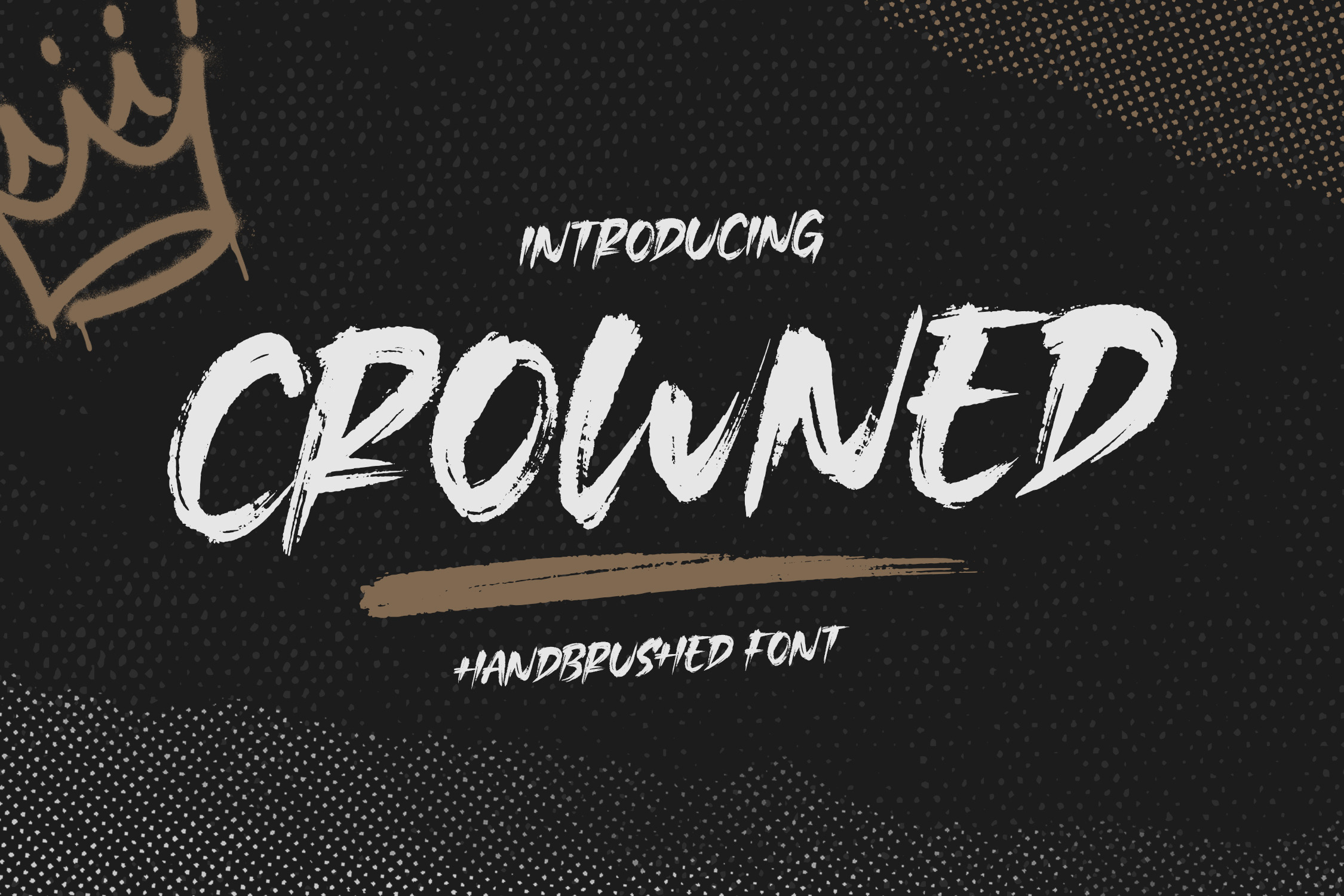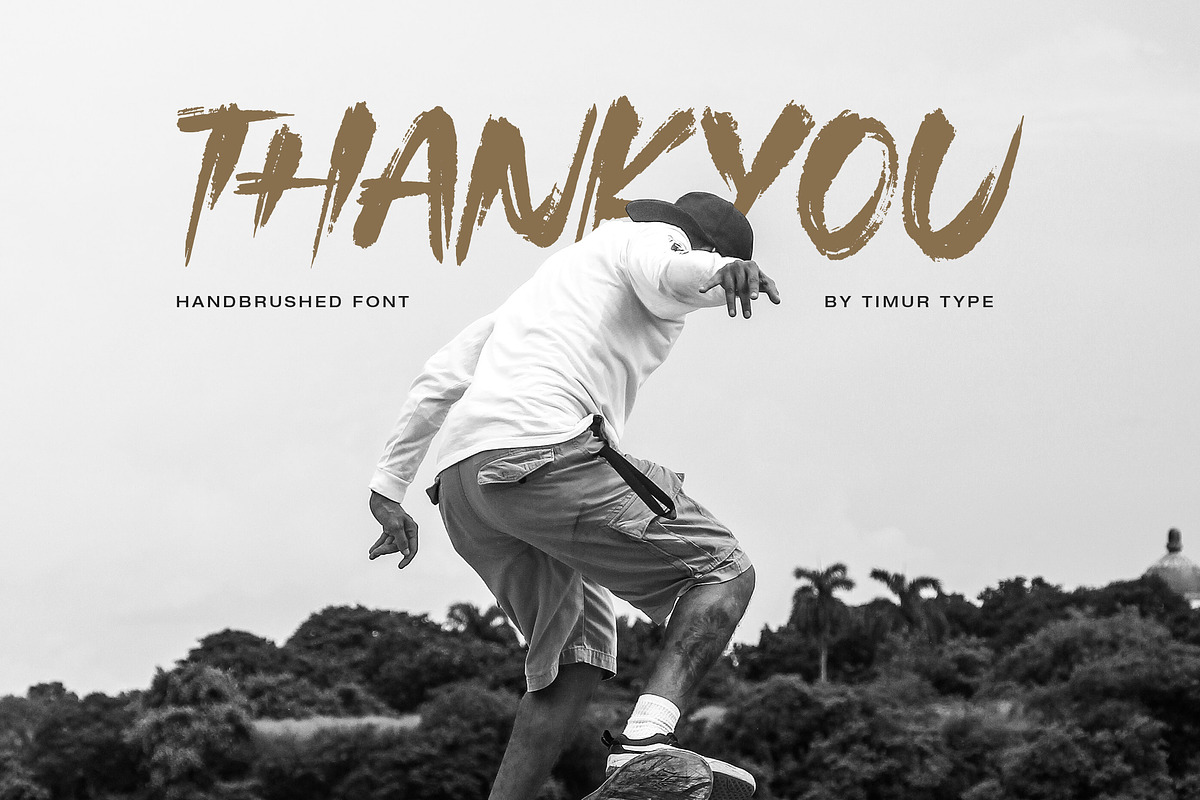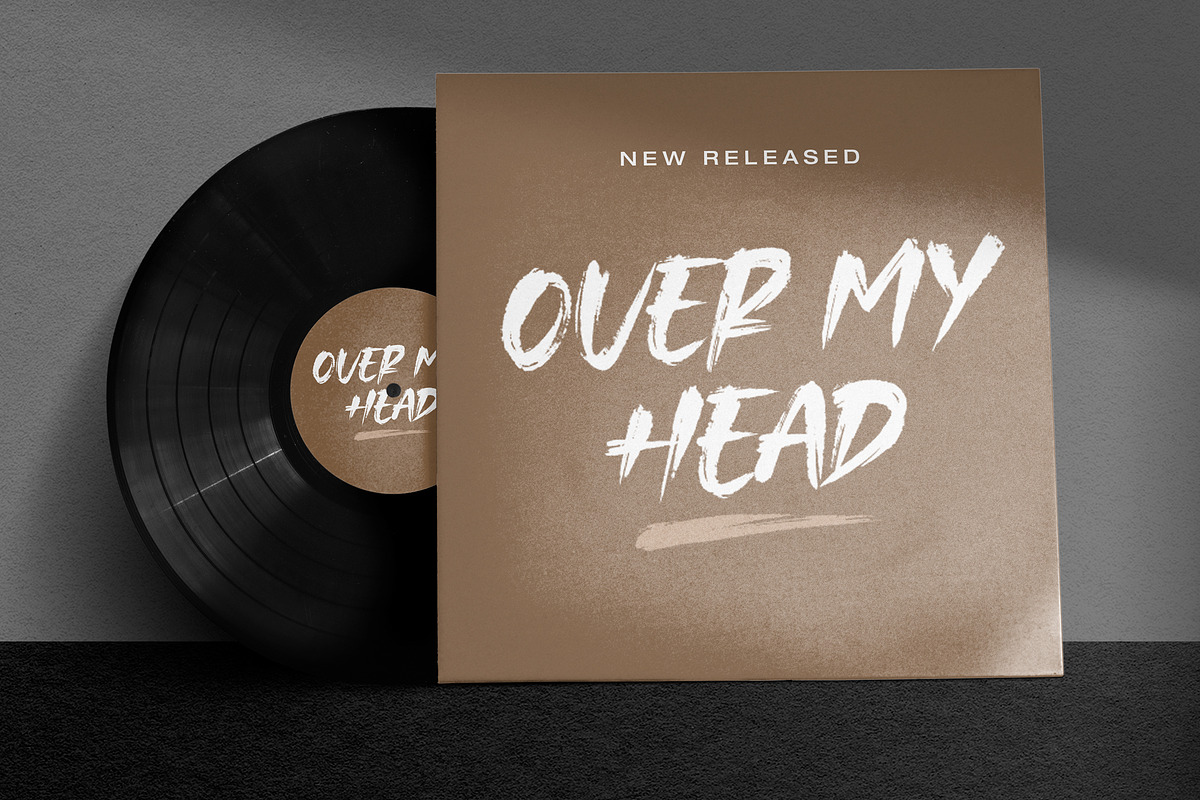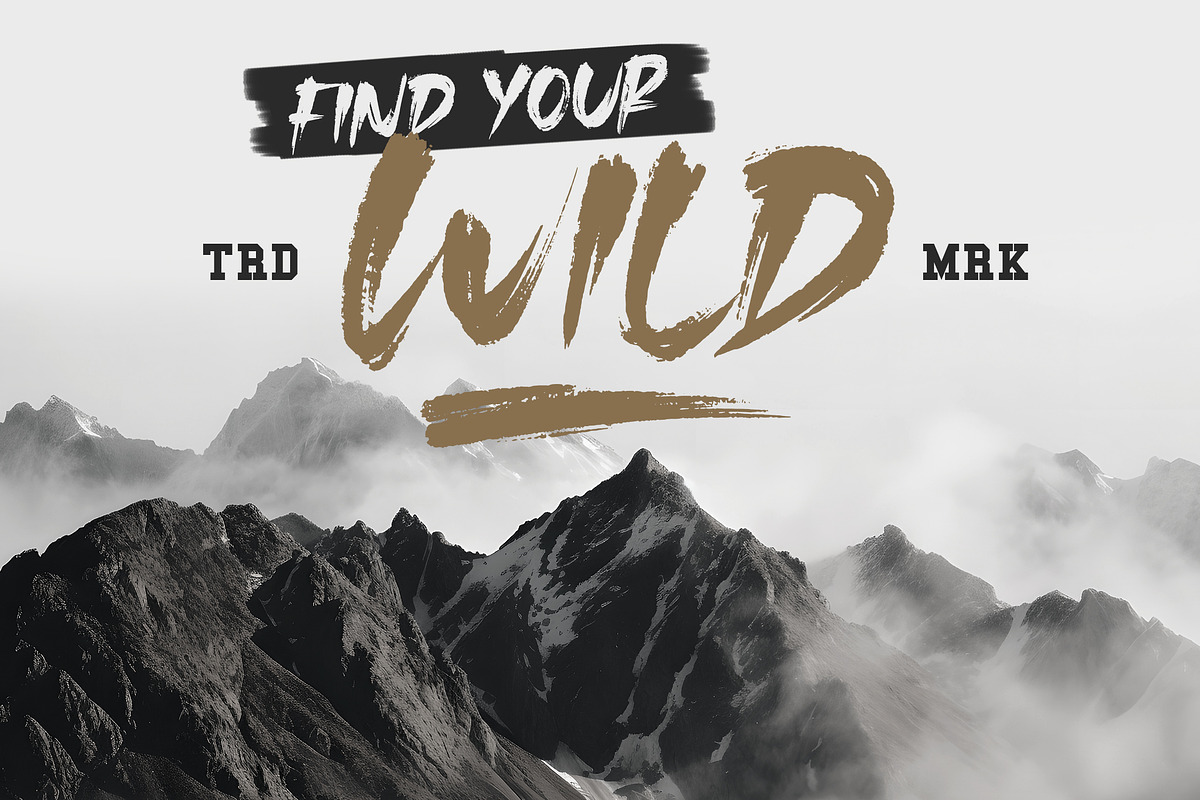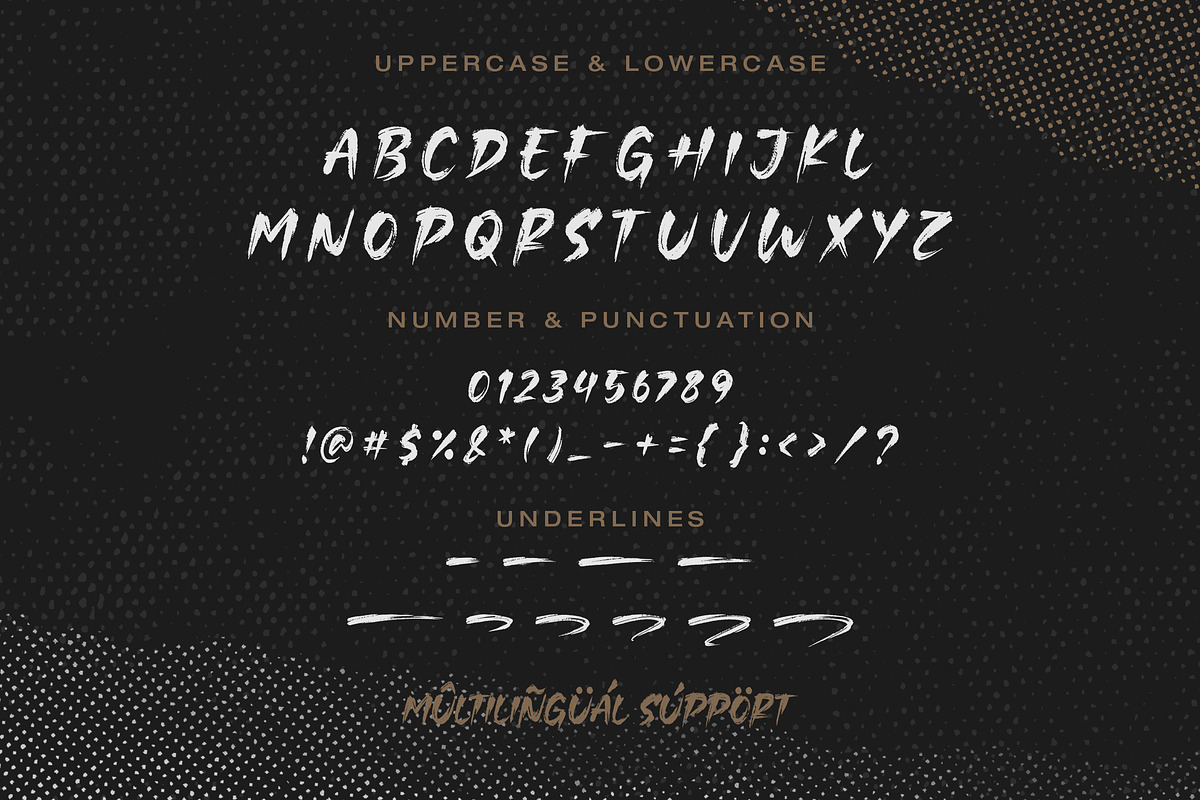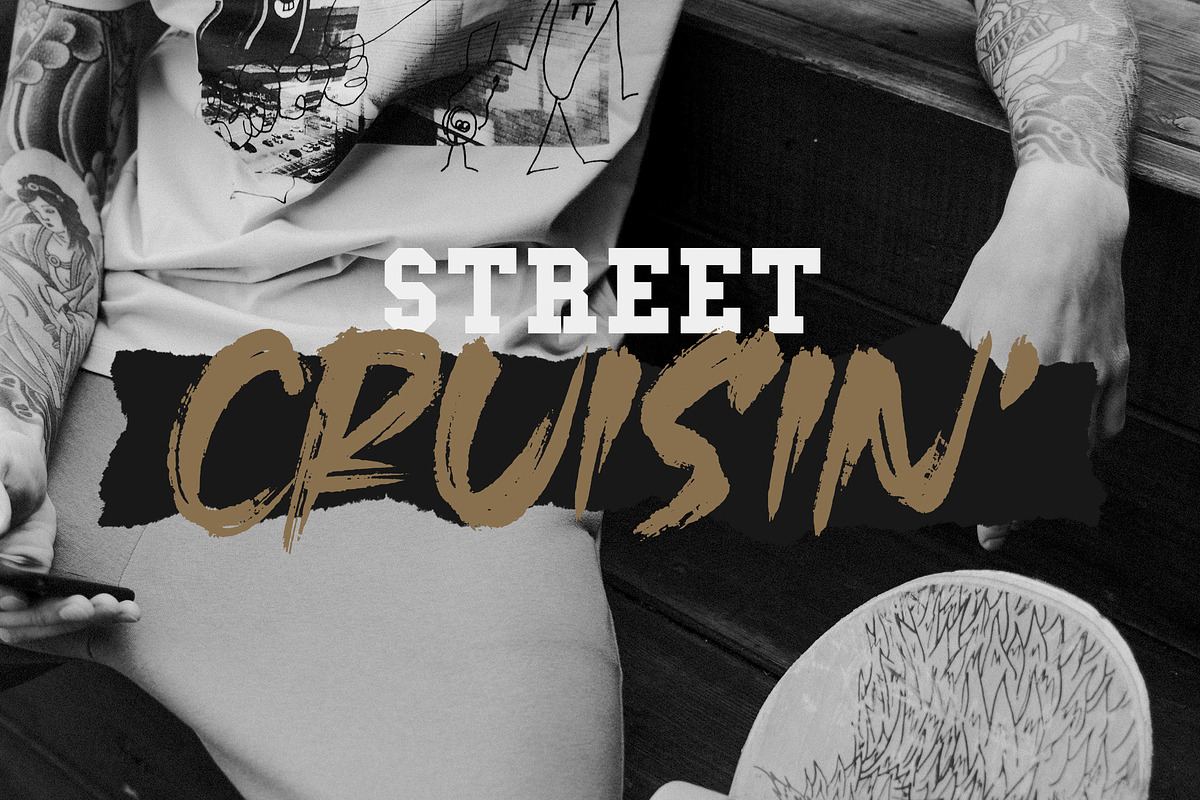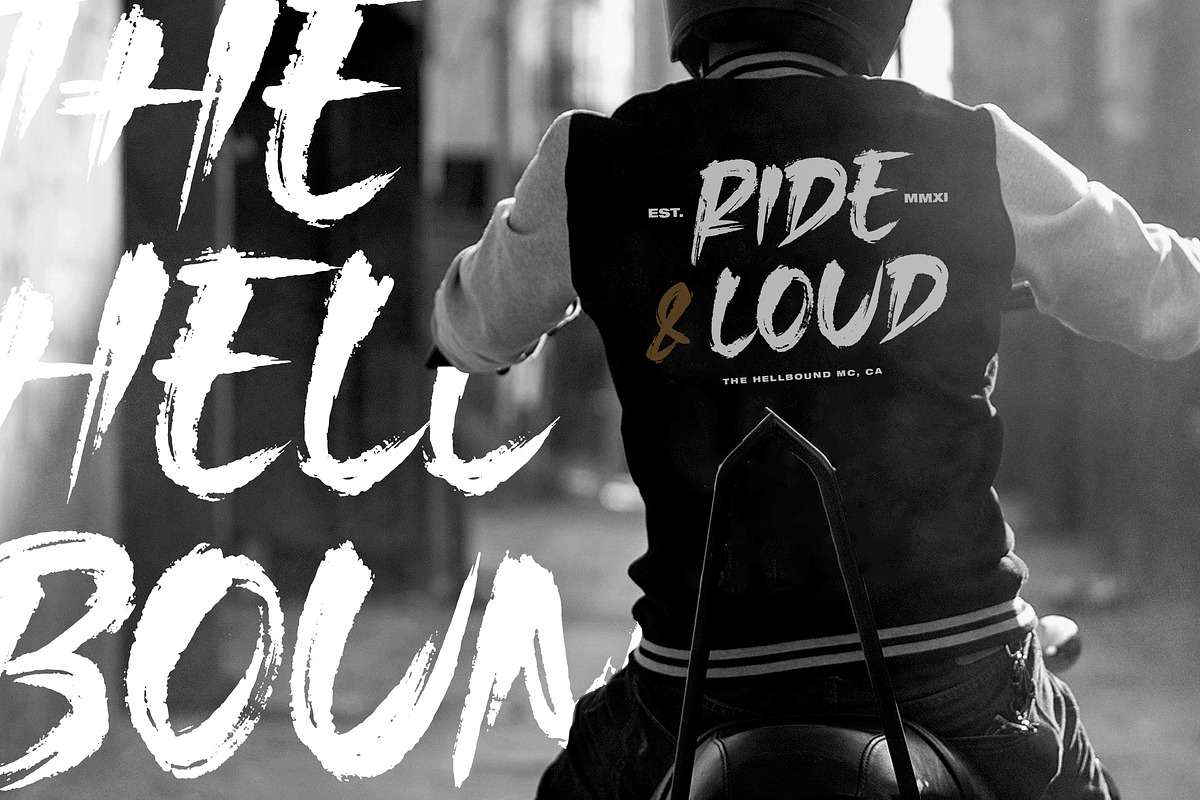
Crowned - Handbrushed Font
Crowned is a Handbrushed font that is modern and fresh, and will bring a warm and inviting feel to your business. Take advantage of the fonts and experience the magic for yourself. Crowned font is perfect for product packaging, branding project, megazine, social media, wedding, or just used to express words above the background.
Crowned font also multilingual support. Crowned font Features premium : -Full Set of standard alphabet and punctuation